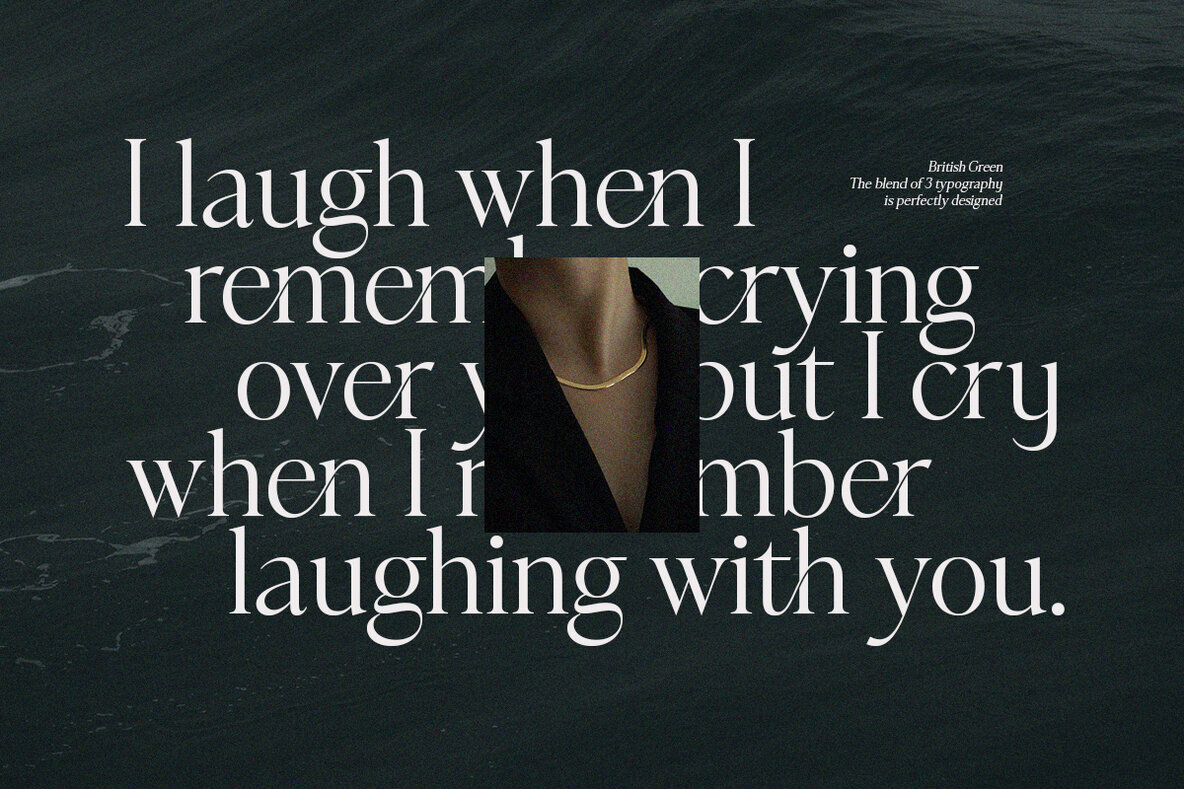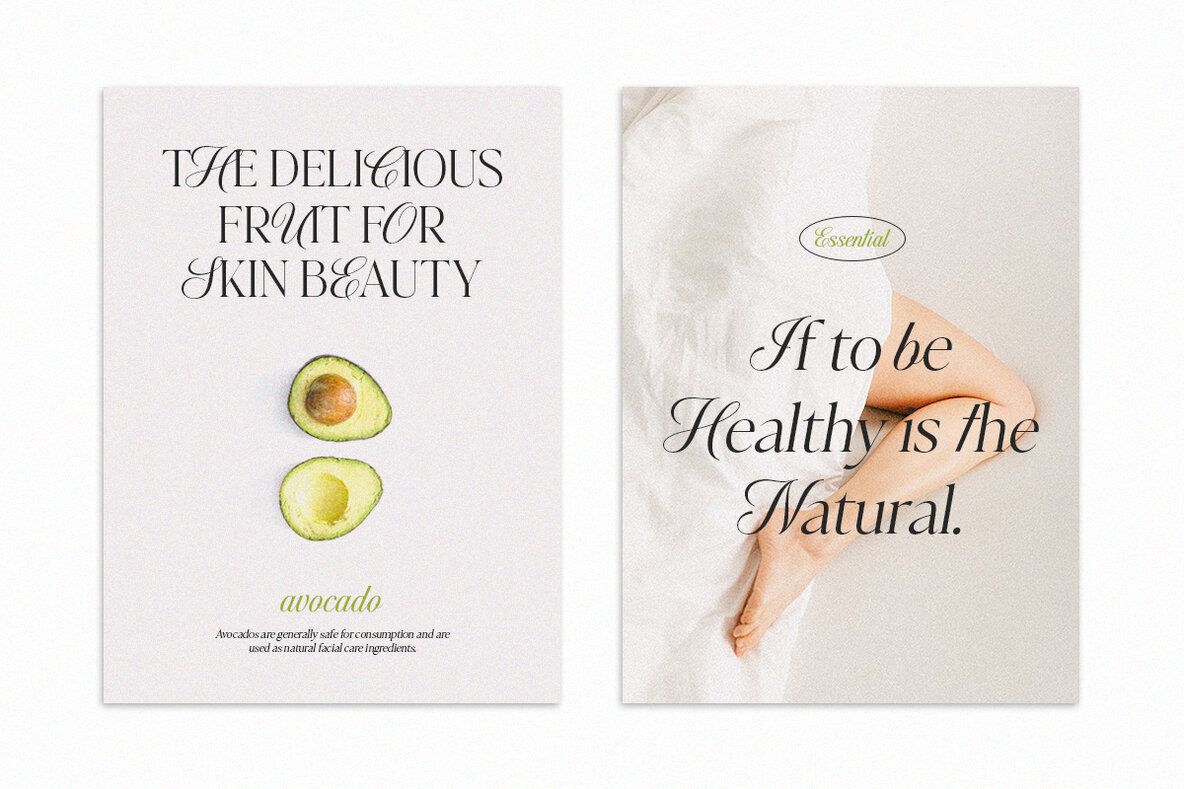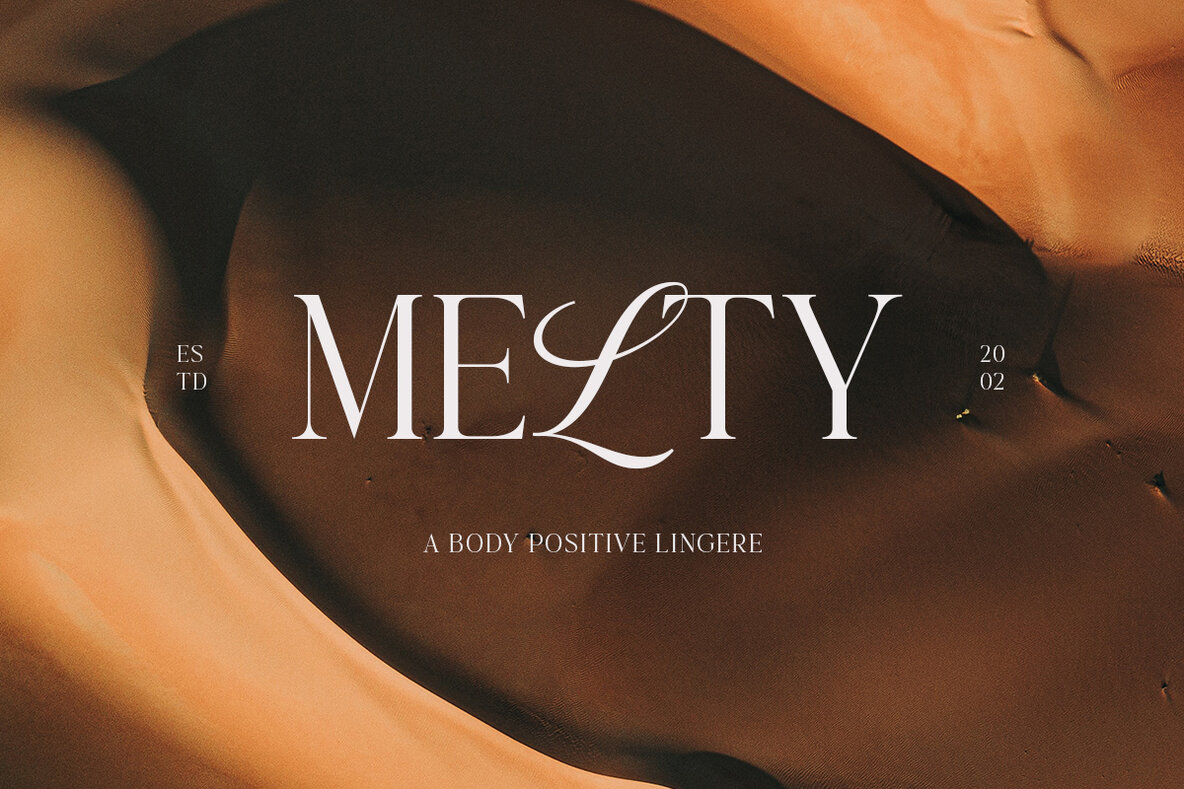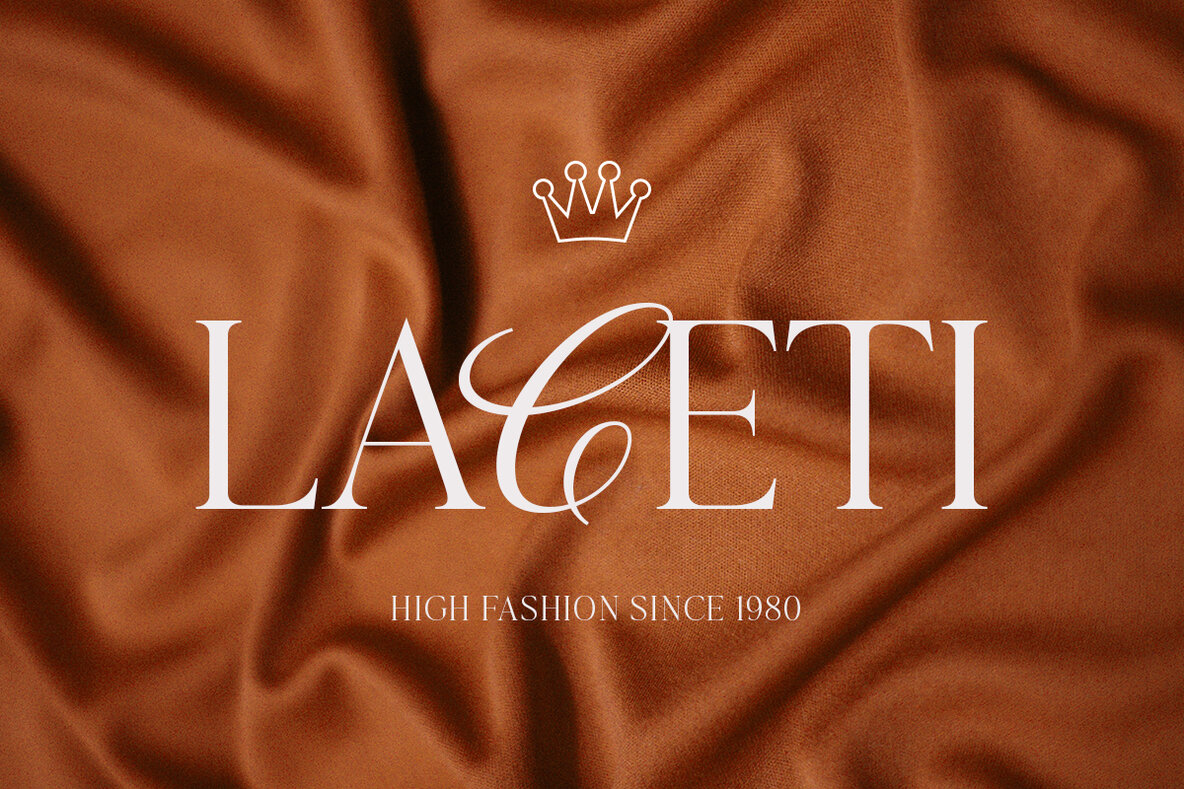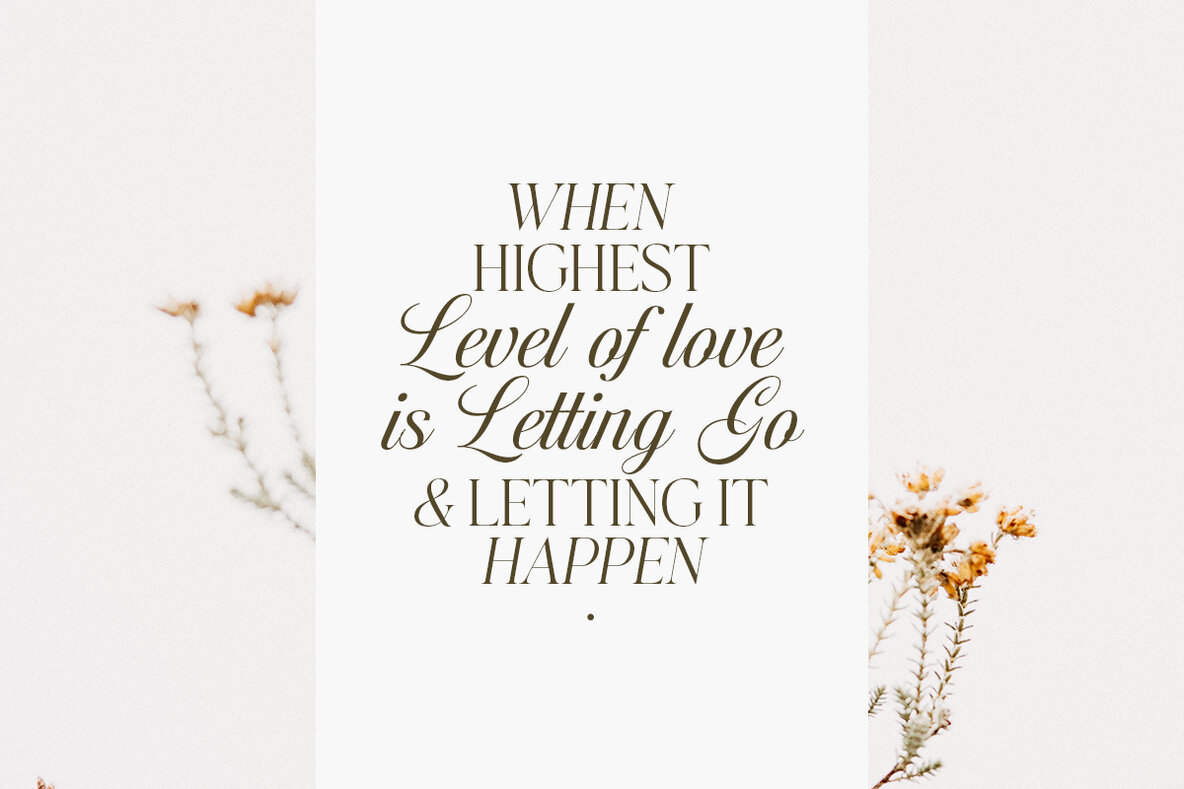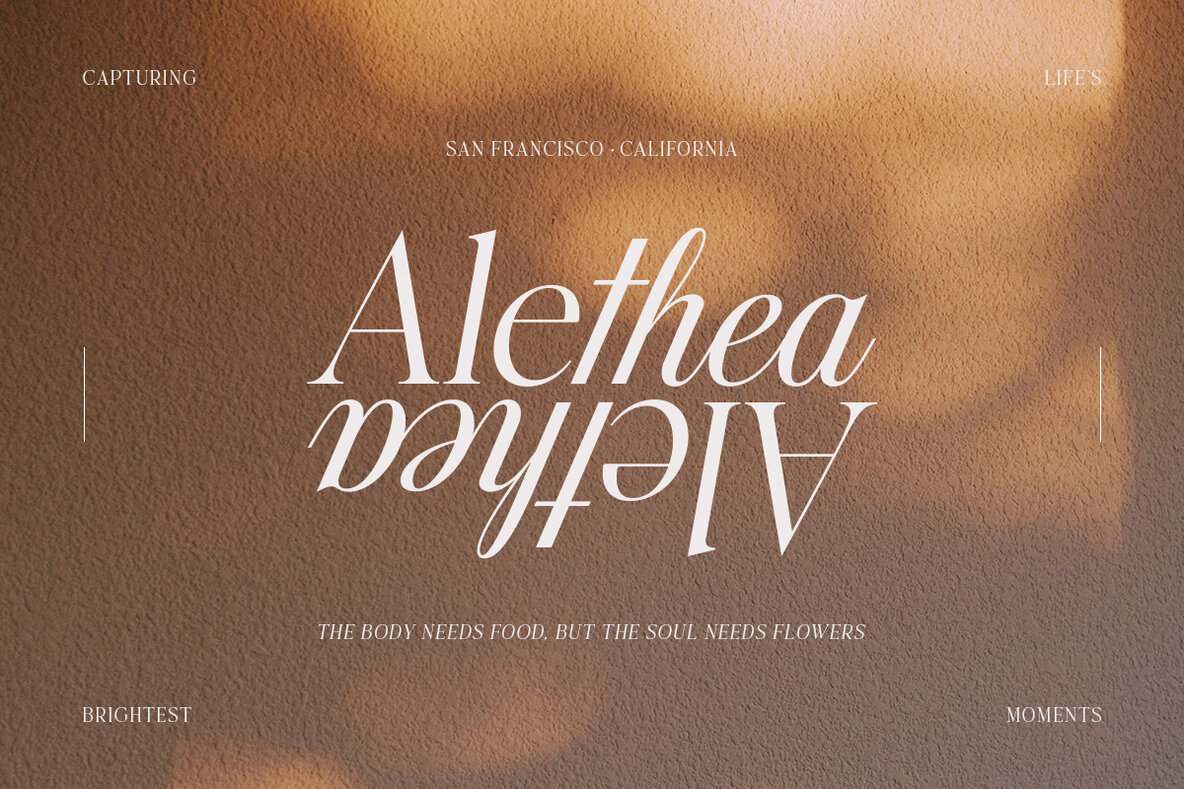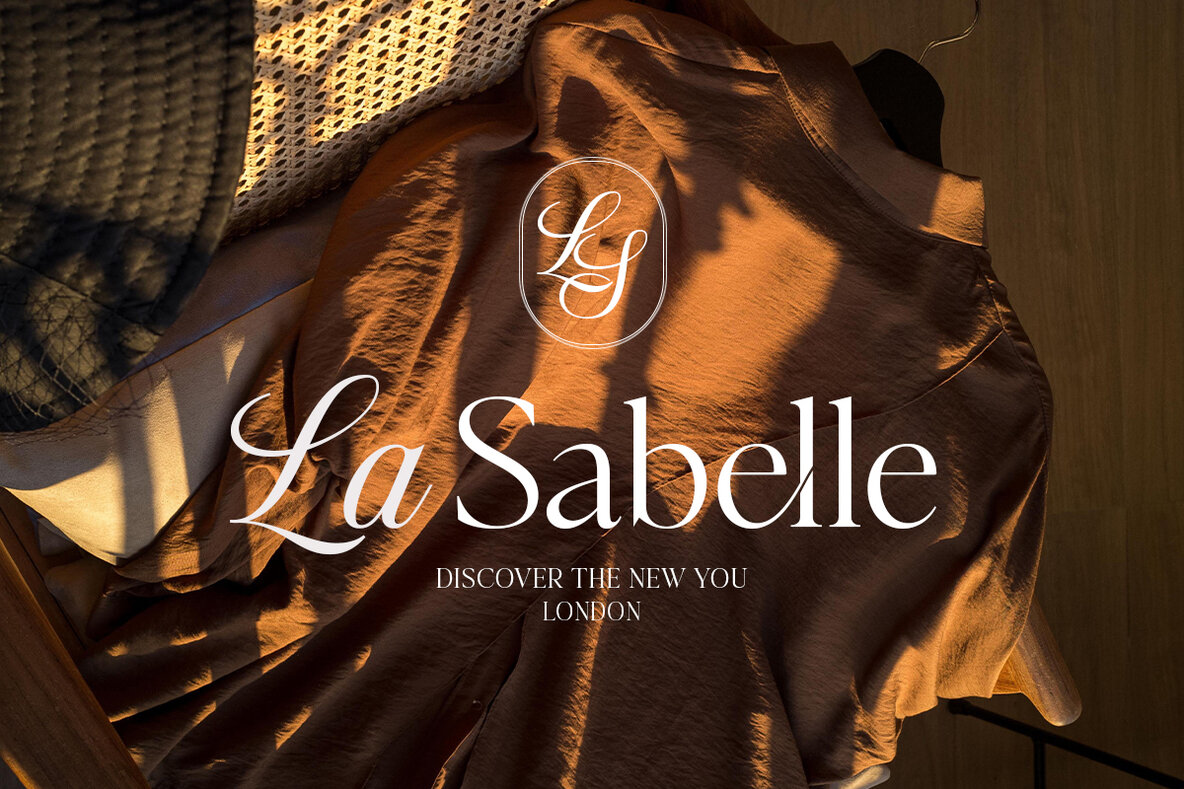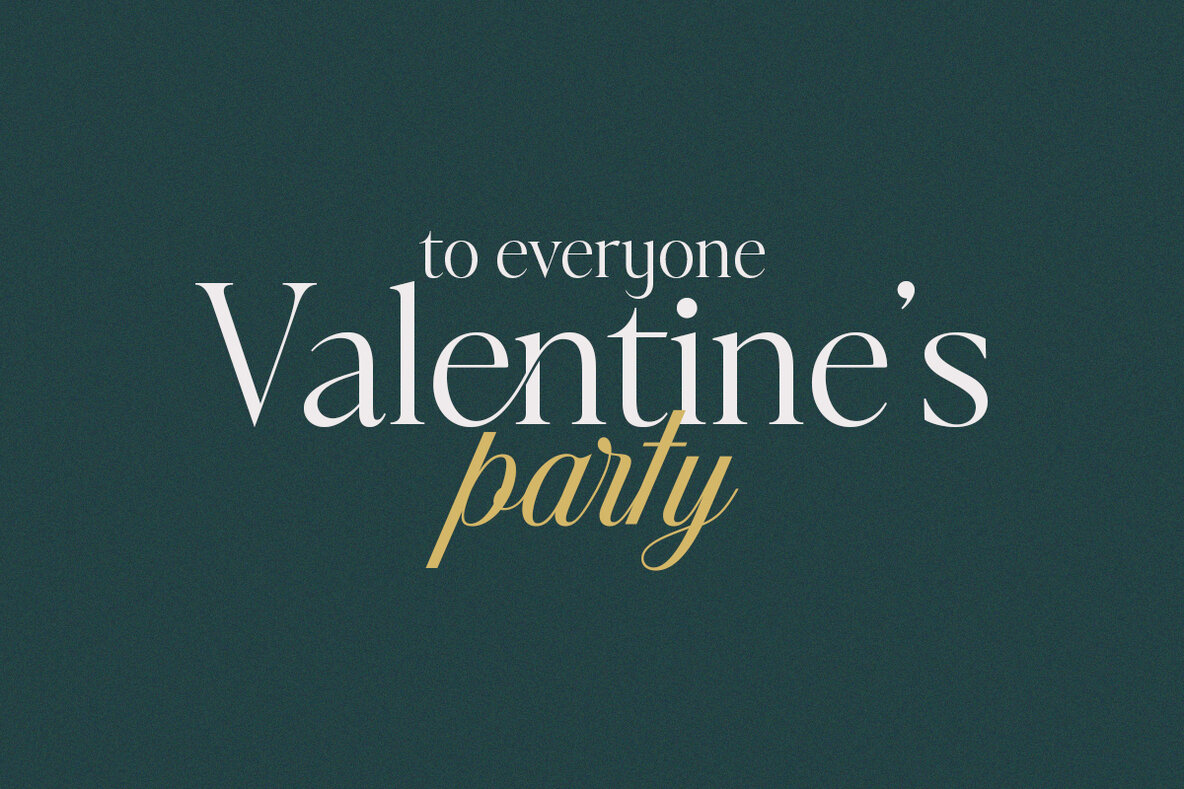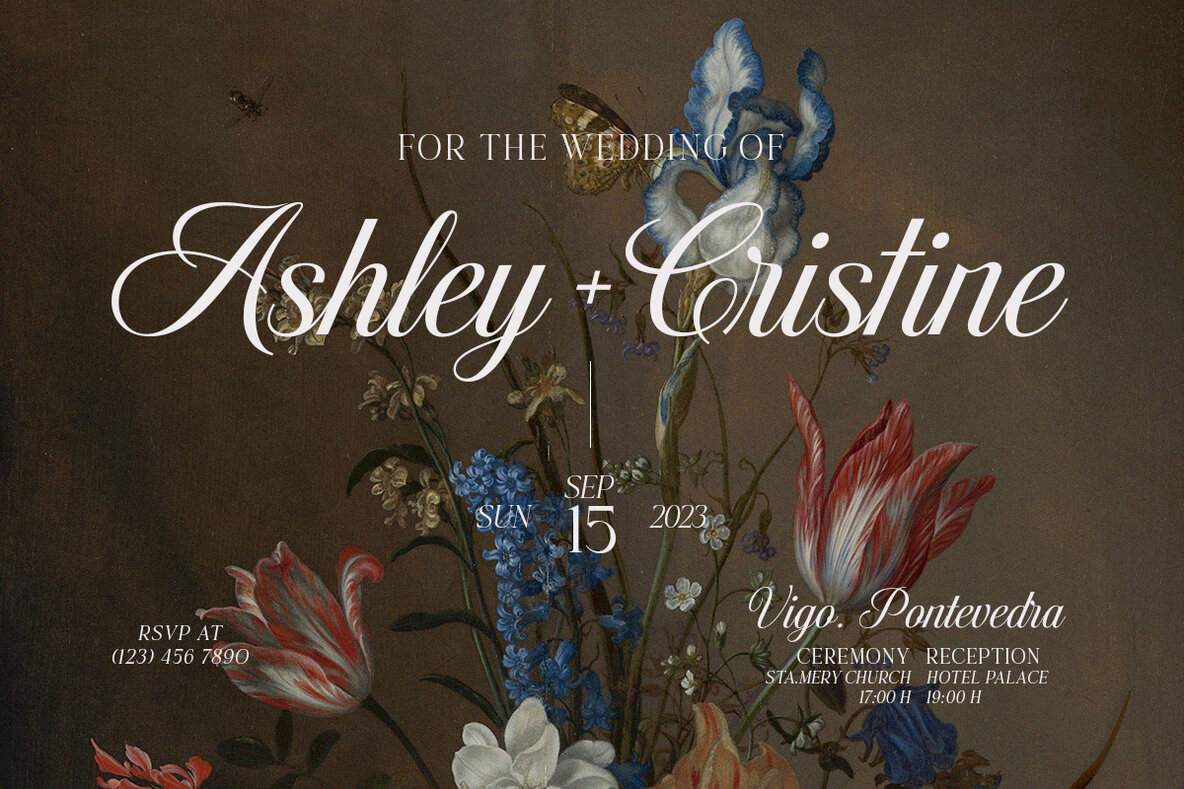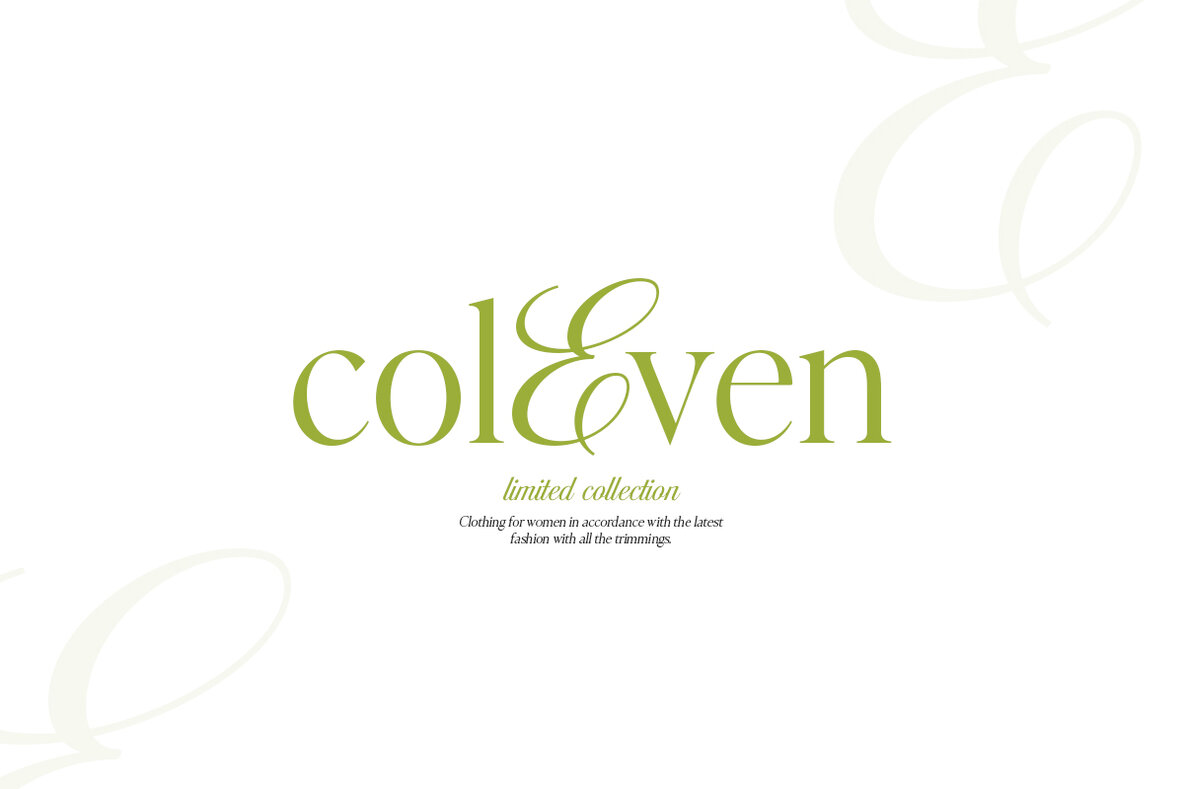
British Green Font
Elevate your designs with British Green – a stunning font duo! This versatile set includes two distinct fonts – a script and a serif – that when placed side by side create an eye-catching look. British Green features both upper and lower case characters and is perfect for any design project! Download it now to get started.